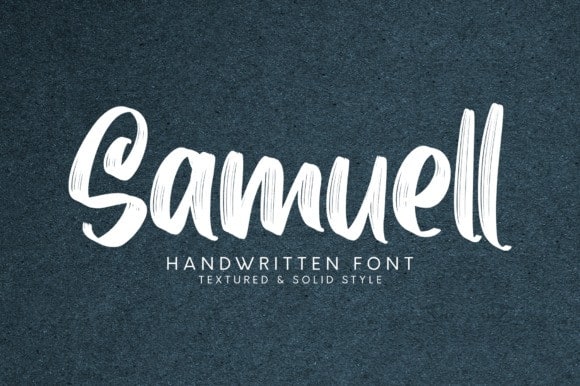
Samuell Script Font
Samuell is a gorgeous brush script font that will turn any design project into a standout. Fall in love with its modern feel, and turn any design project into a true standout!